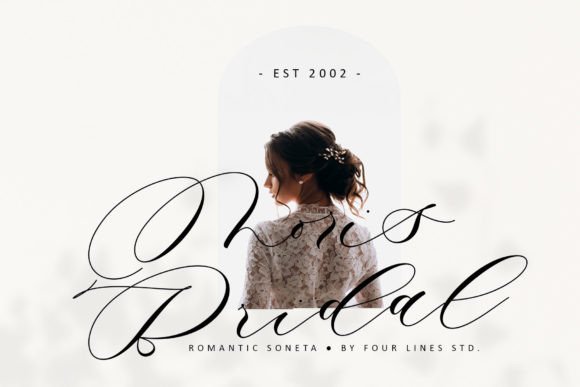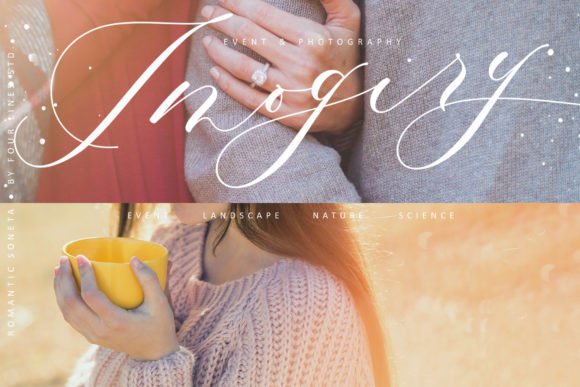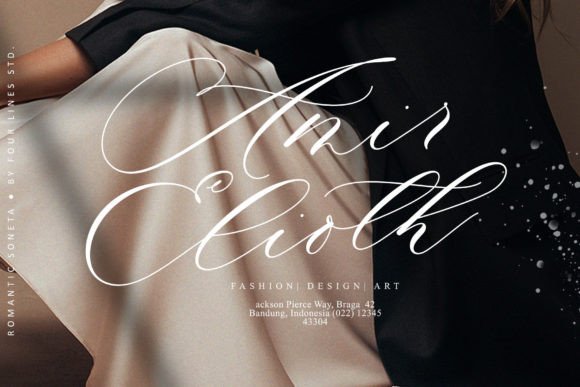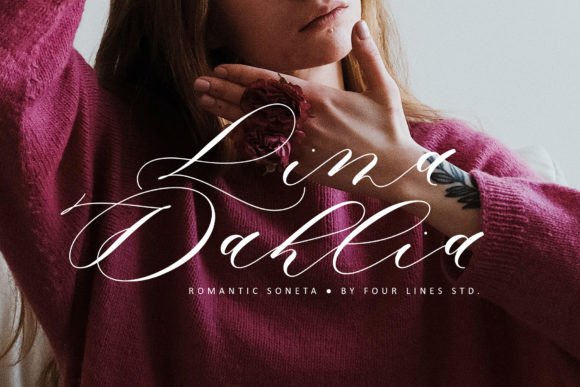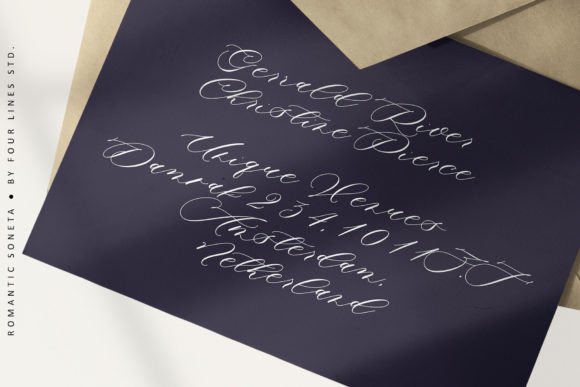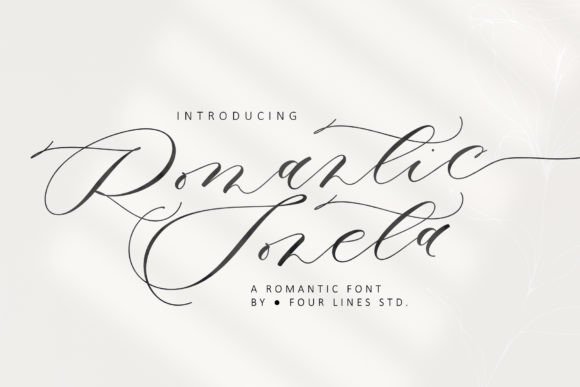
Introduction to Romantic Soneta Font
Have you ever been brainstorming for hours, trying to come up with the perfect design for your client’s wedding invitation or social media post, only to feel like something is missing? That’s when you stumble upon the perfect font – one that adds a touch of luxury and elegance to your design. For designers looking for a high-quality, modern calligraphy font, look no further than the Romantic Soneta Font.
This beautiful font is perfect for any creative project that requires a touch of sophistication and style. With its PUA encoded glyphs and ligatures, you’ll have access to a wide range of characters that will elevate your designs to the next level. Whether you’re working on a branding project, designing labels, or creating stationery, the Romantic Soneta Font is the perfect design resource to add a personal touch.
Key Features of Romantic Soneta Font
- Unique, elegant design ideal for creative projects and romantic themes.
- Comes in a single font weight, perfect for adding a touch of sophistication to your designs.
- Supports a wide range of languages, including Latin, Cyrillic, and Greek alphabets.
Honest Review: Romantic Soneta Font
As a designer, I’m always on the lookout for high-quality design resources that can elevate my creative project. The Romantic Soneta Font has caught my attention, and I’m excited to share my honest review with you.
- Beautiful Calligraphy: The Romantic Soneta Font boasts stunning calligraphy that’s perfect for adding a touch of elegance to your designs.
- High-Quality: The font’s high-quality design ensures that it looks great on various backgrounds, including transparent backgrounds.
- Limited Character Set: The font’s character set is somewhat limited, which might not be ideal for projects that require a wide range of characters.
- No Bold/Italic Options: Currently, there are no bold or italic options available for the Romantic Soneta Font, which might be a drawback for some designers.
Overall, I’m impressed with the Romantic Soneta Font’s beautiful calligraphy and high-quality design. While it has some limitations, it’s still a great addition to any design project. If you’re looking for a unique and elegant font for your creative project, I highly recommend giving it a try.
The Romantic Soneta Font is a free design resource perfect for any creative project. With its elegant and sophisticated style, this font is ideal for adding a touch of romance to your designs. One of its standout features is its transparent background, making it easy to use in various design applications.
Tips for Getting the Most Out of Romantic Soneta Font
To get the most out of the Romantic Soneta Font, use it in combination with other design elements to create a cohesive look. Experiment with different font sizes, colors, and styles to add depth and interest to your designs.
The Romantic Soneta Font is perfect for wedding invitations, love letters, and other romantic designs. It’s also great for creating beautiful quotes, poems, and other creative content.